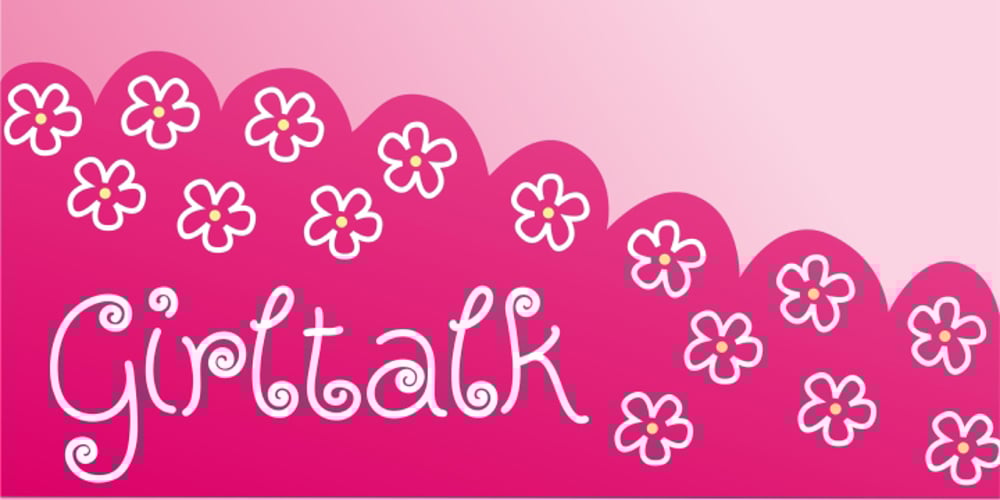
Girltalk Font Family was designed by Merle Scholtz and published by Scholtz Fonts. Girltalk contains 1 styles and family package options. Cute, curly, & very “little missy”, Girltalk was specially designed for the pre-teen & young-teen market. Its design was inspired by the kind of curly handwriting that junior school girls use for notes to each other, diary entries, autograph books etc. Pretty & feminine, with a large dose of cheek, Girltalk is a must for all marketing media aimed at the 7-14 age group: — “girl style” stationery — diary covers — clothing hang-tags — party invitations — greeting cards — book covers — movie posters — CD covers — toy and game advertising media Girltalk can also be used for “big girls”! Great for hen parties, baby showers, pamper parties and other occasions that bring out the “girl in” women. Think pink, think hearts & flowers, think ribbons & bows, add Girltalk to the mix, and you have a winner! Girltalk has been carefully letterspaced and kerned. All upper and lower case characters, punctuation, numerals and accented characters are present.